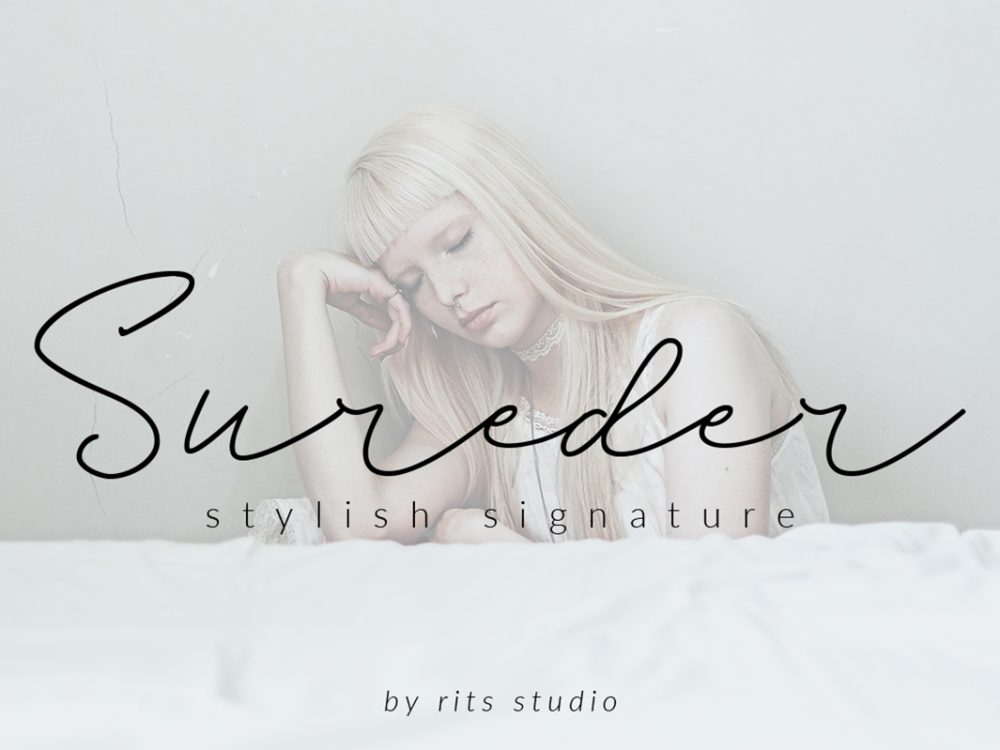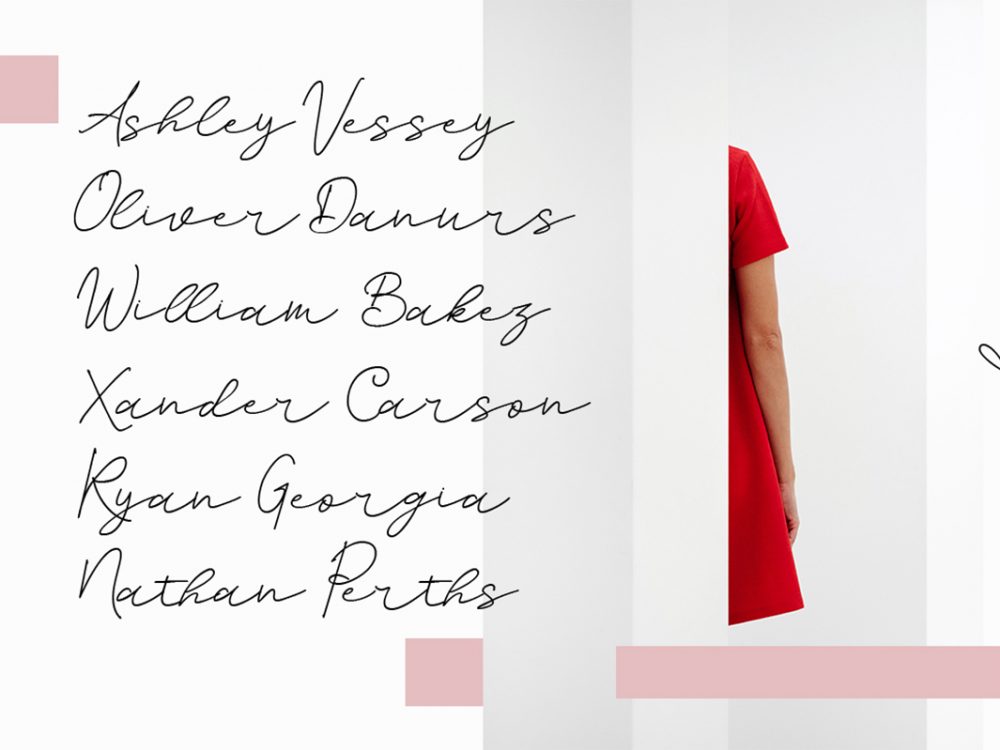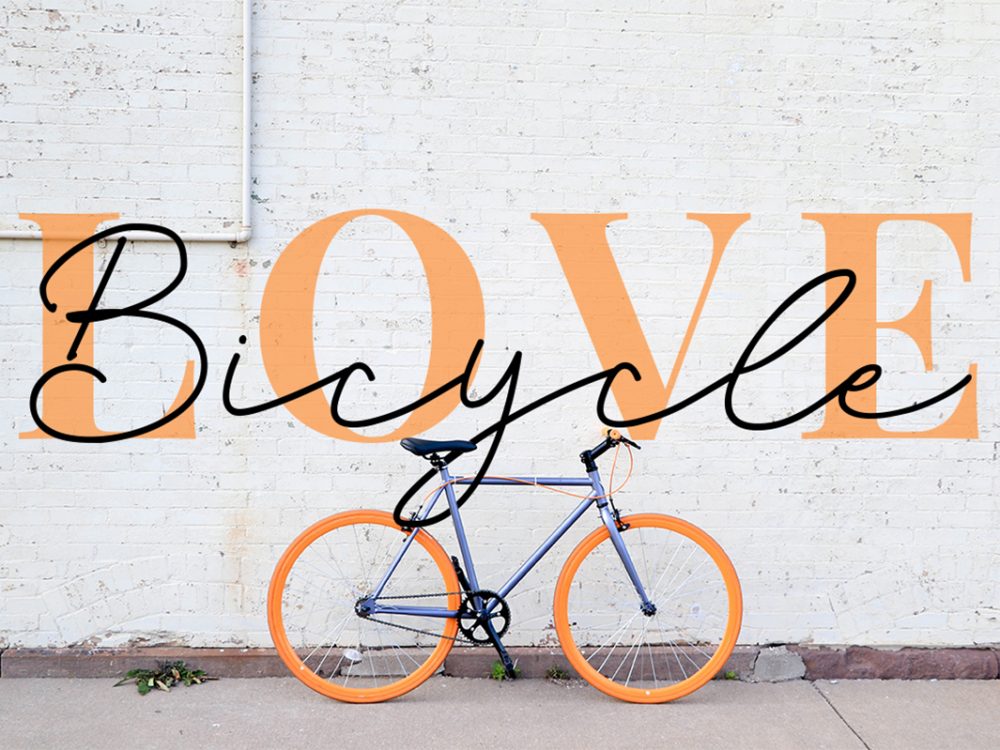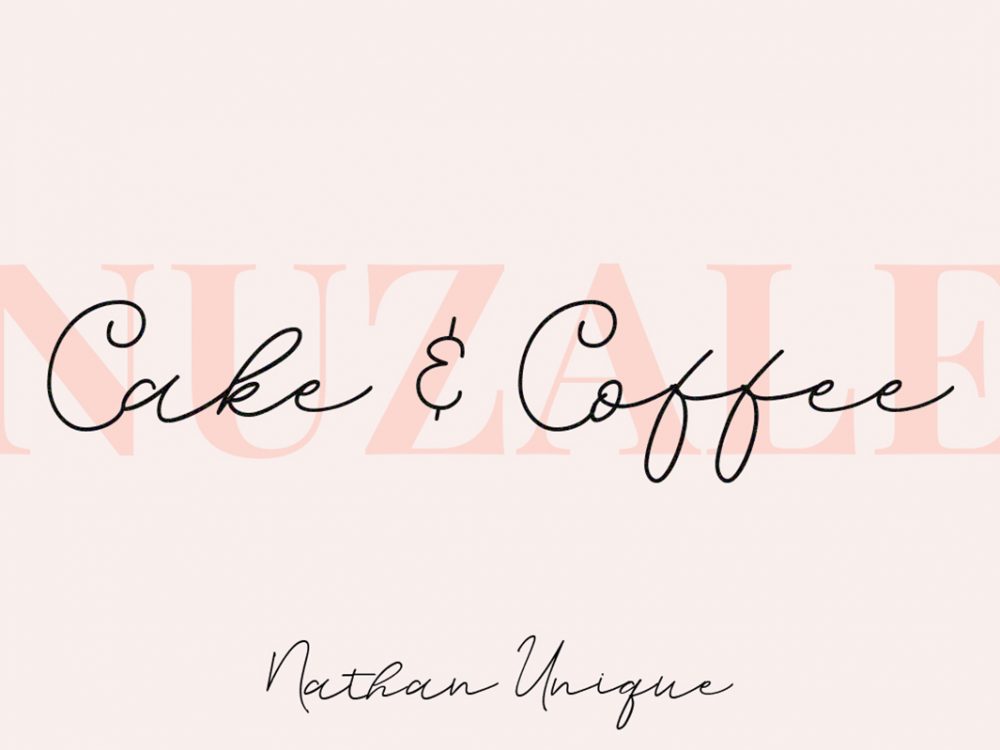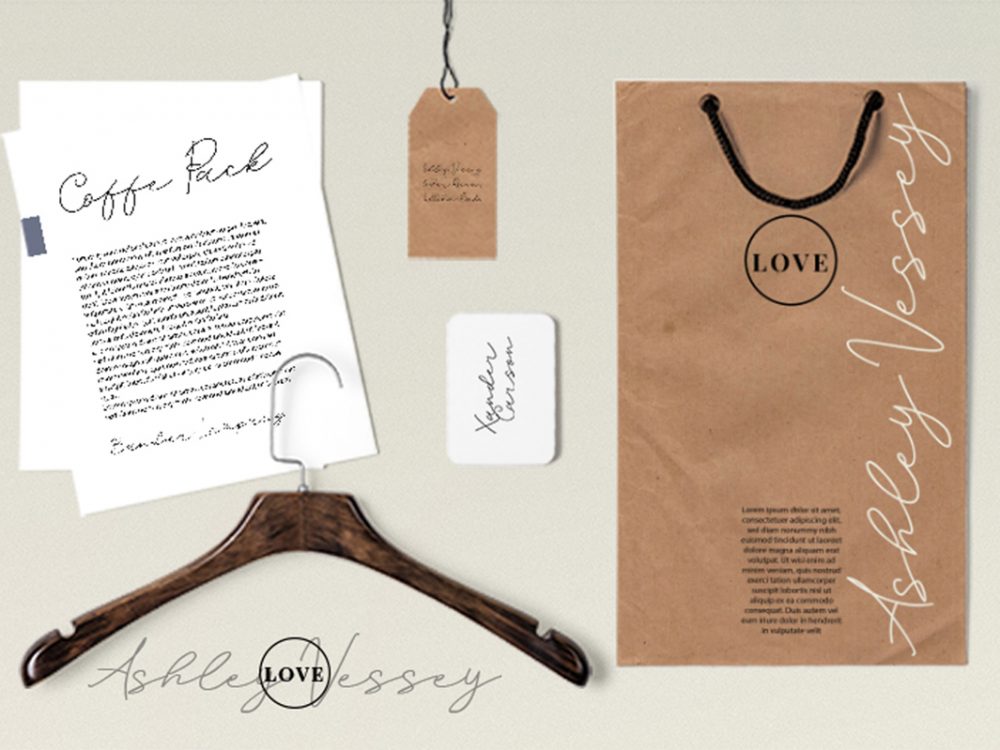
Sureder Stylish Script Font
Sureder Stylish Script Font is a stylish handwritten font that features an elegant style and will help you create unique design projects and improve your professional level. Use this font to create memorable posters, wedding invitations, cards, branding, flyers, and more. Improve the quality and increase the popularity of your design projects by using this font. If you like it don’t forget to check out the full version.